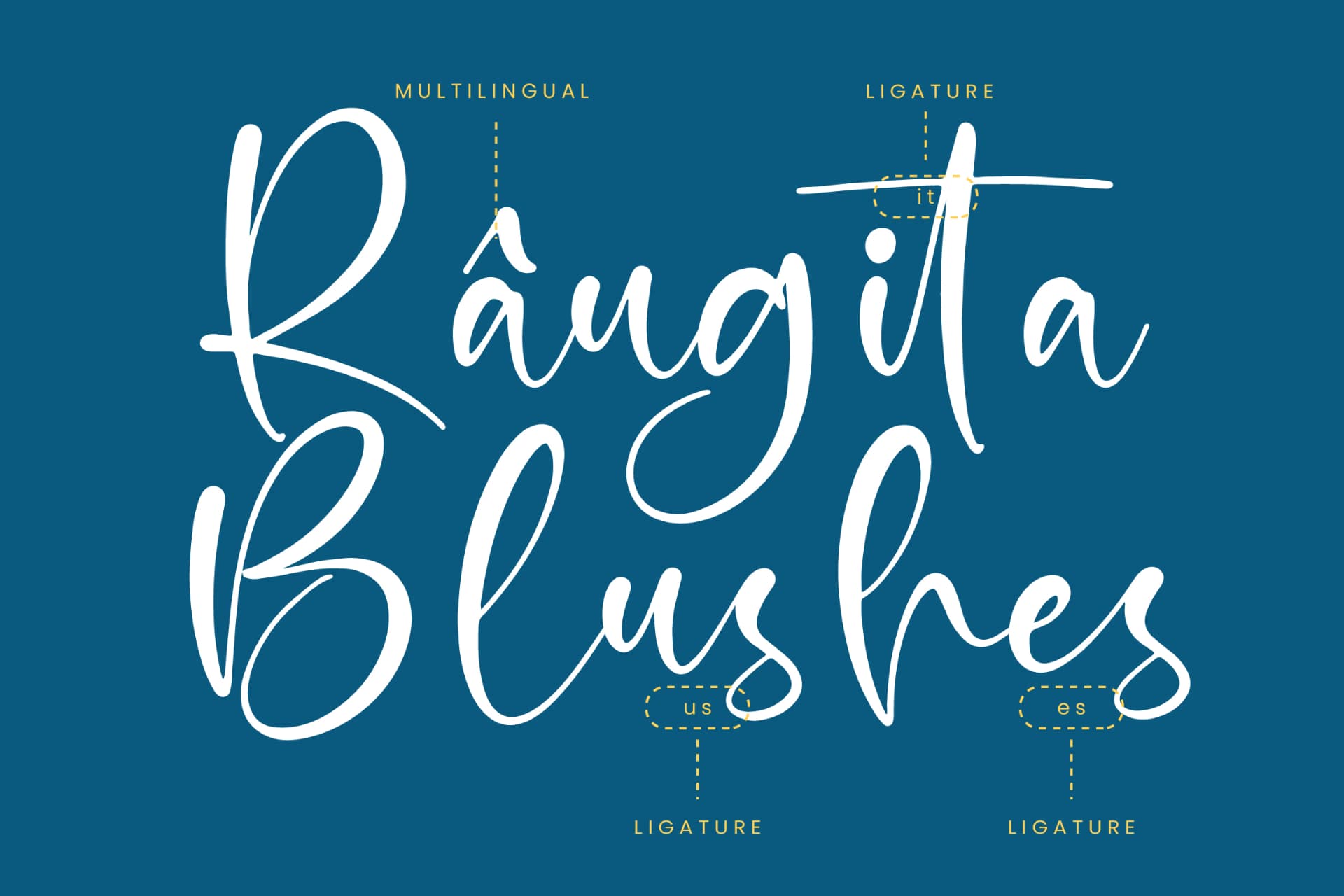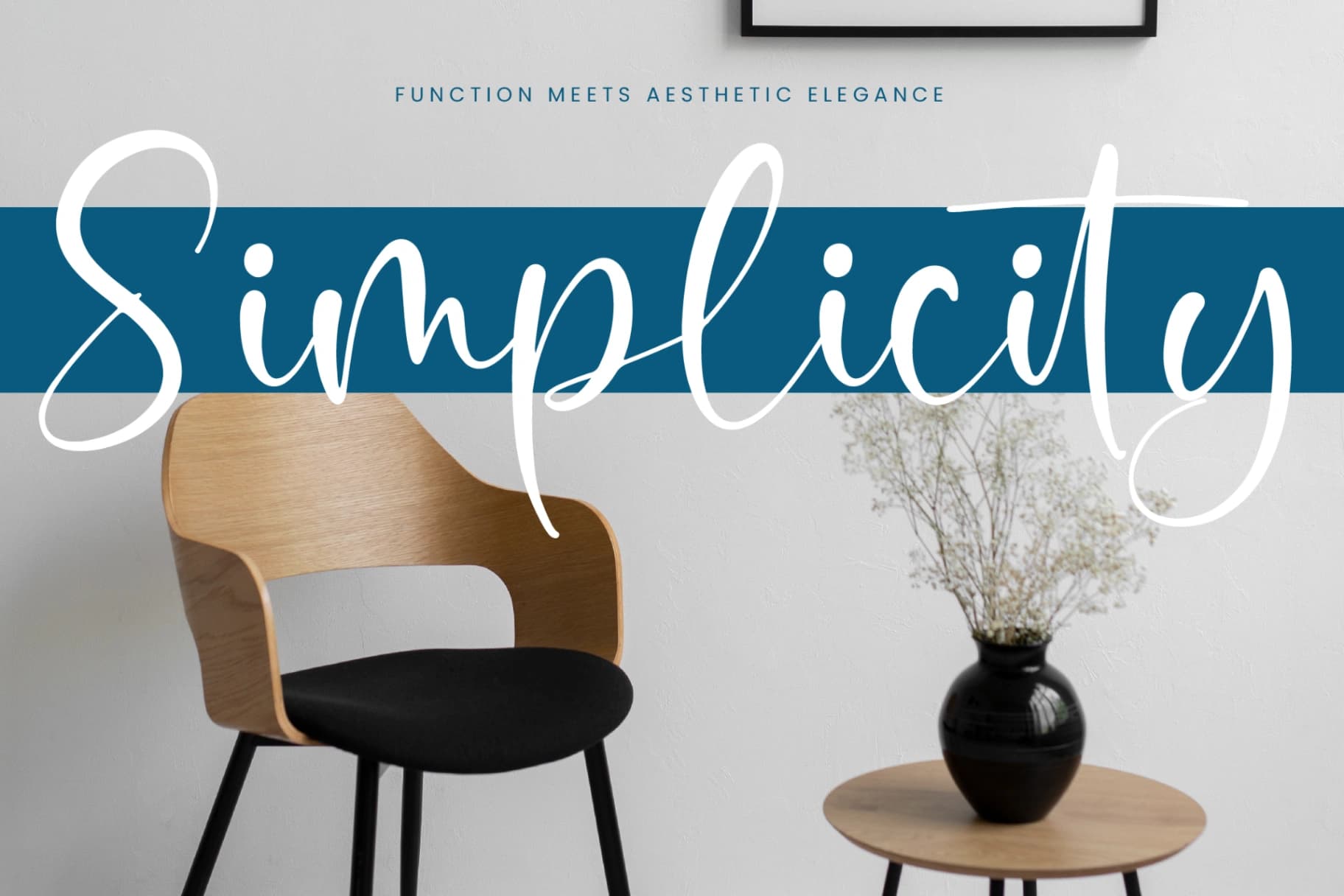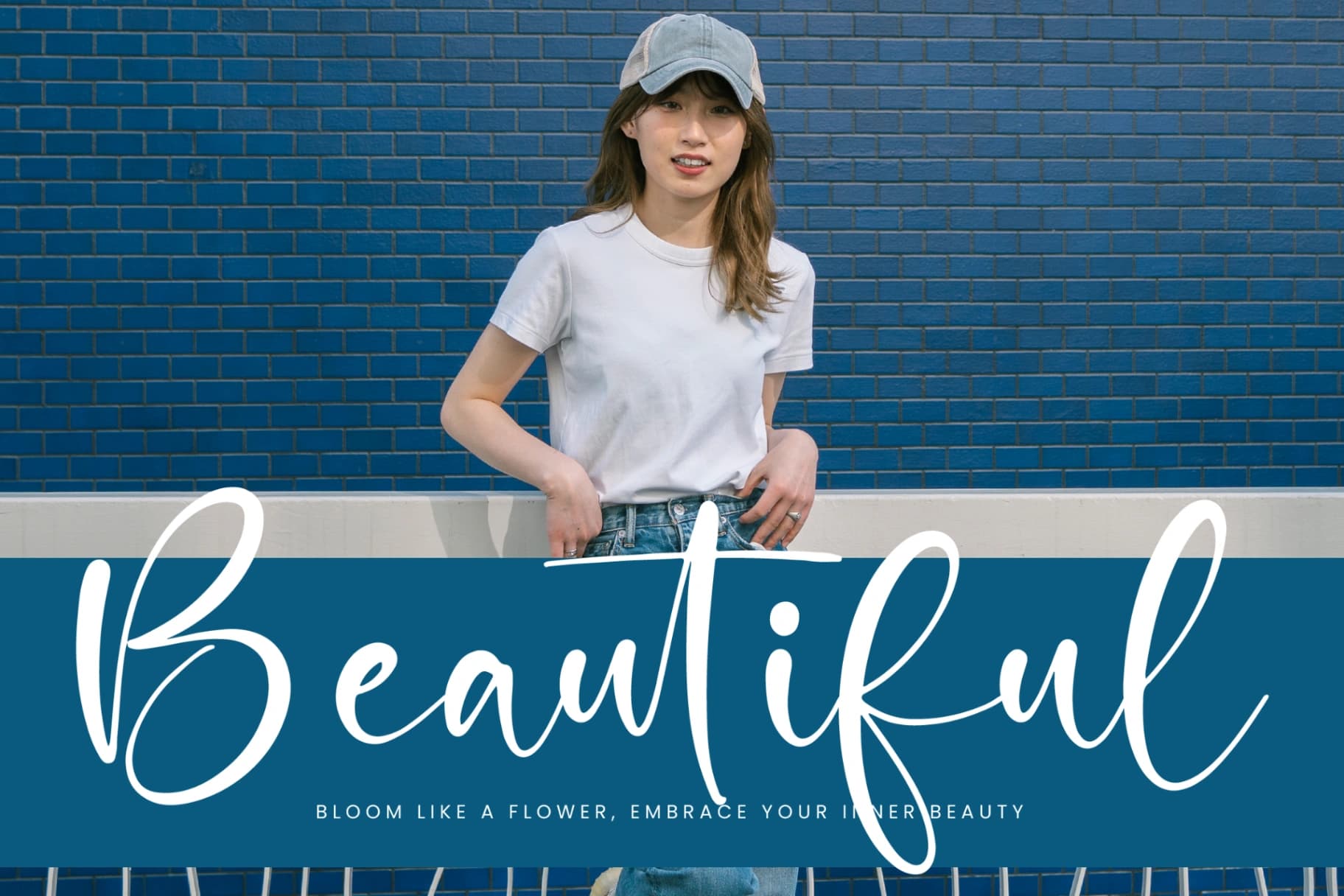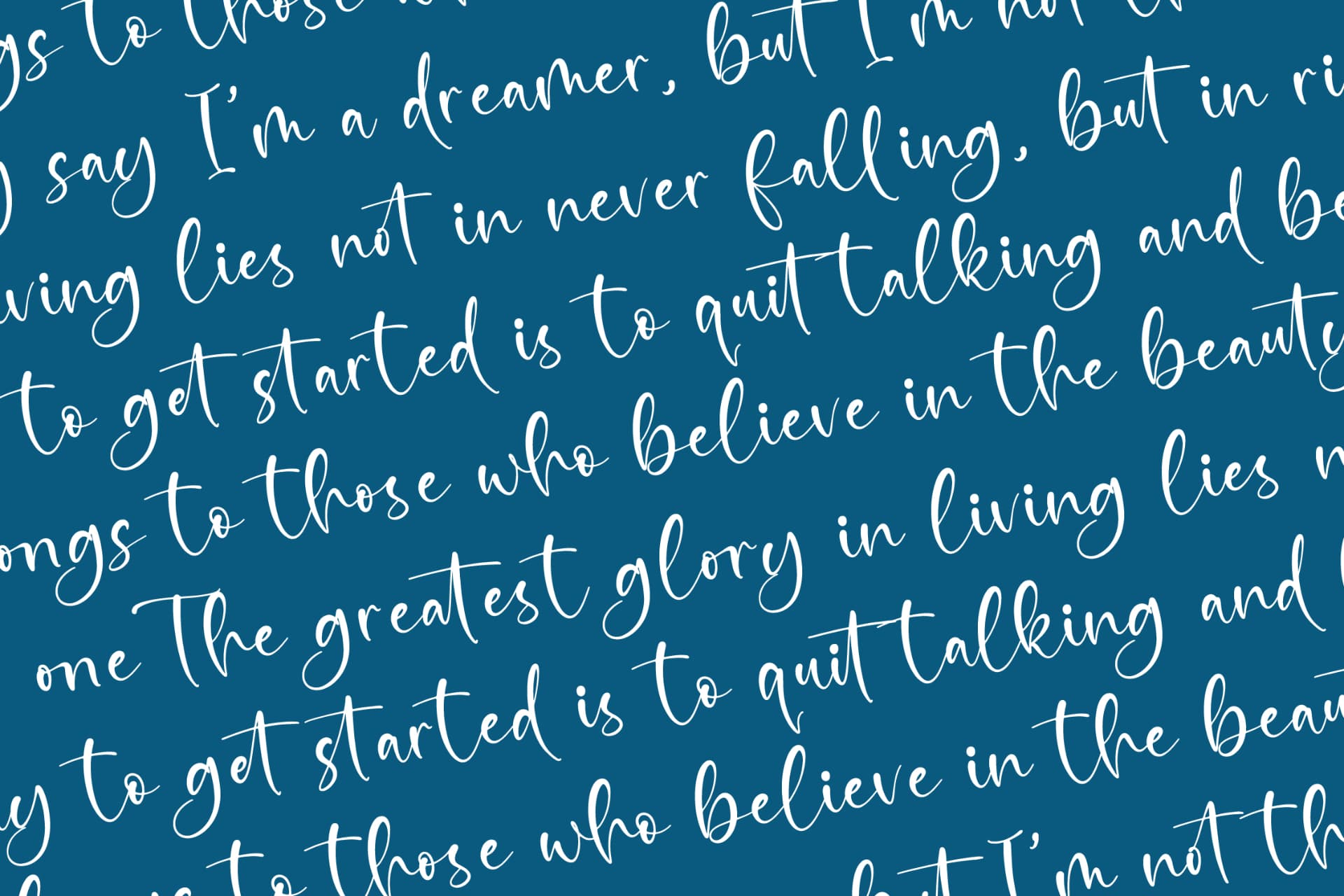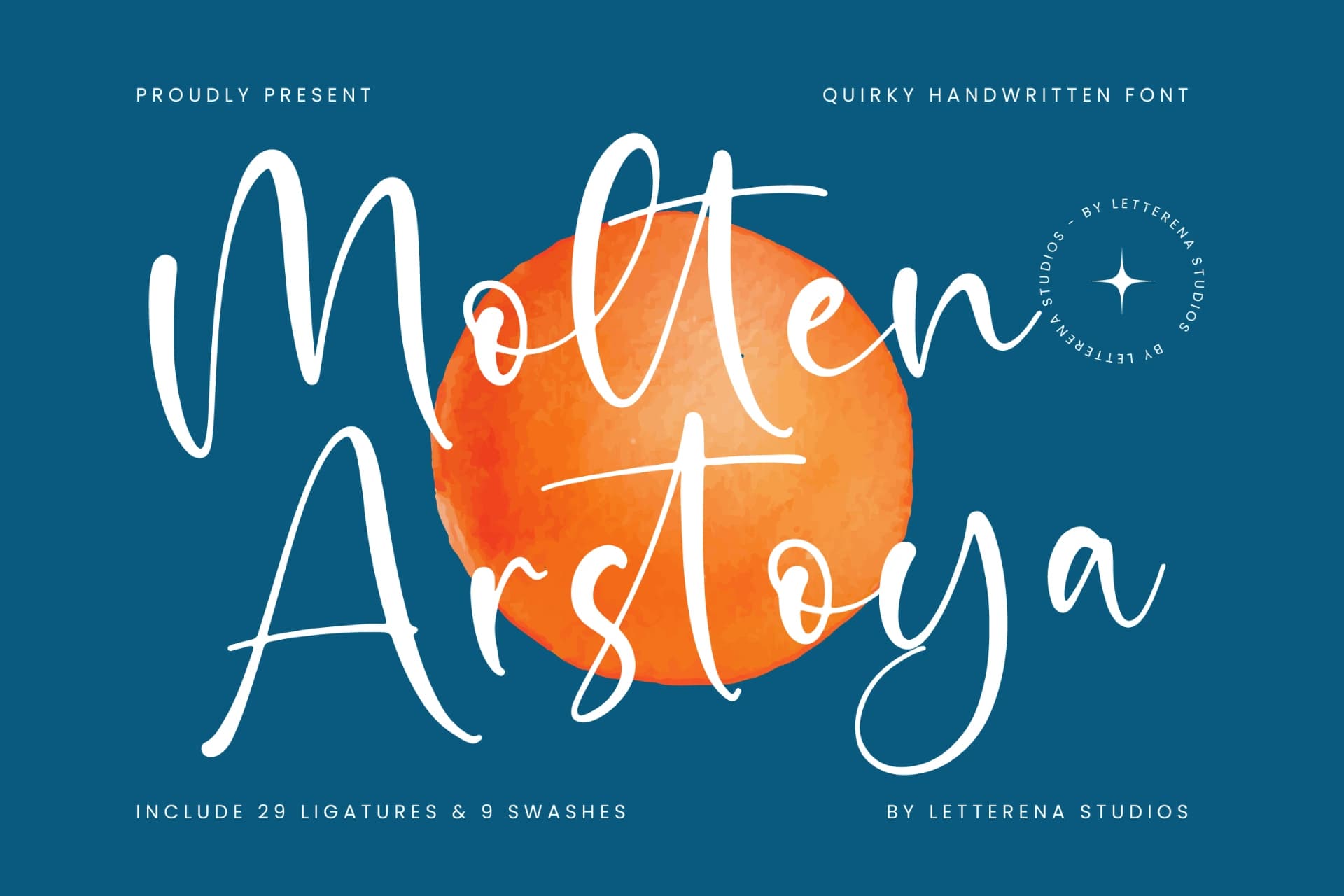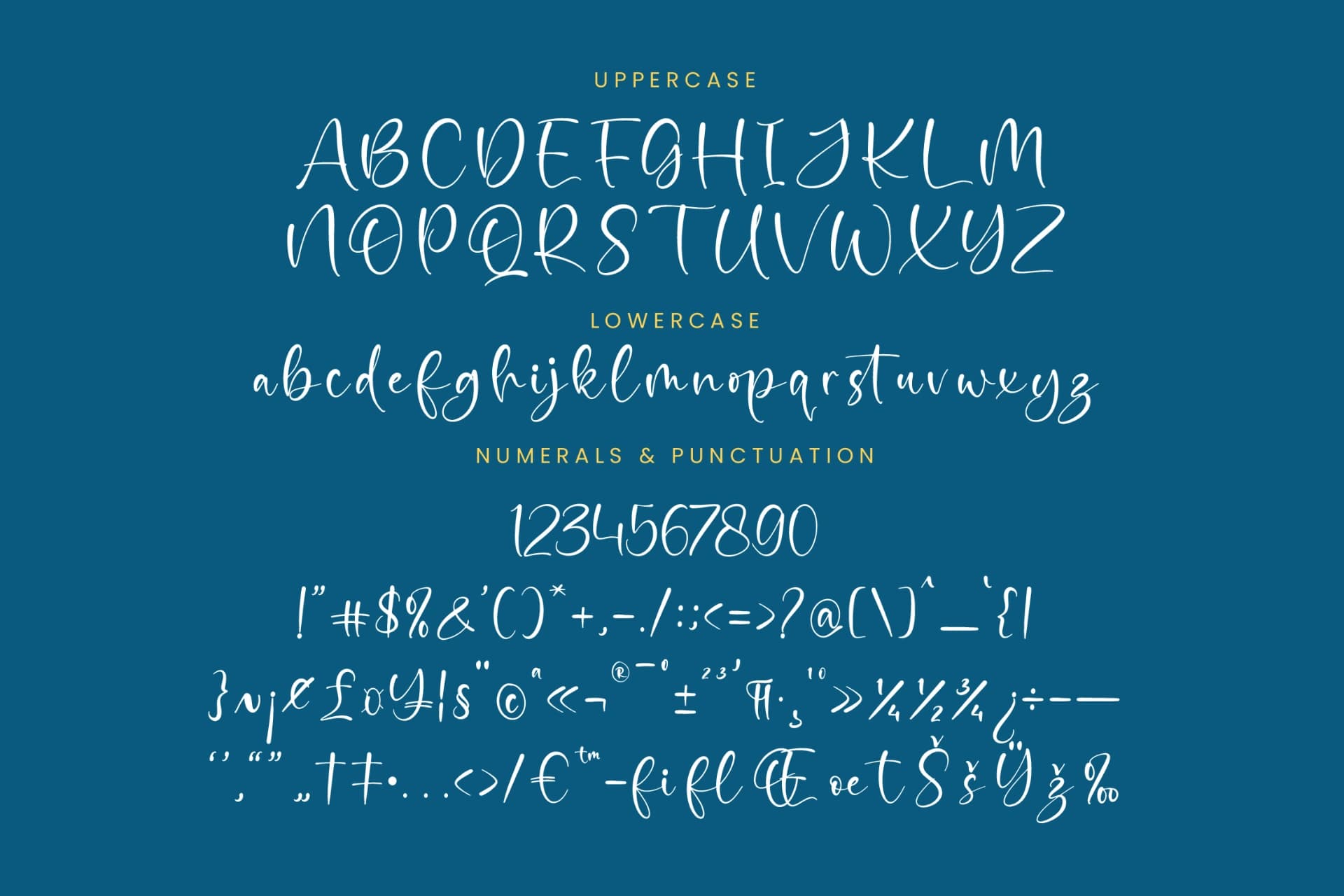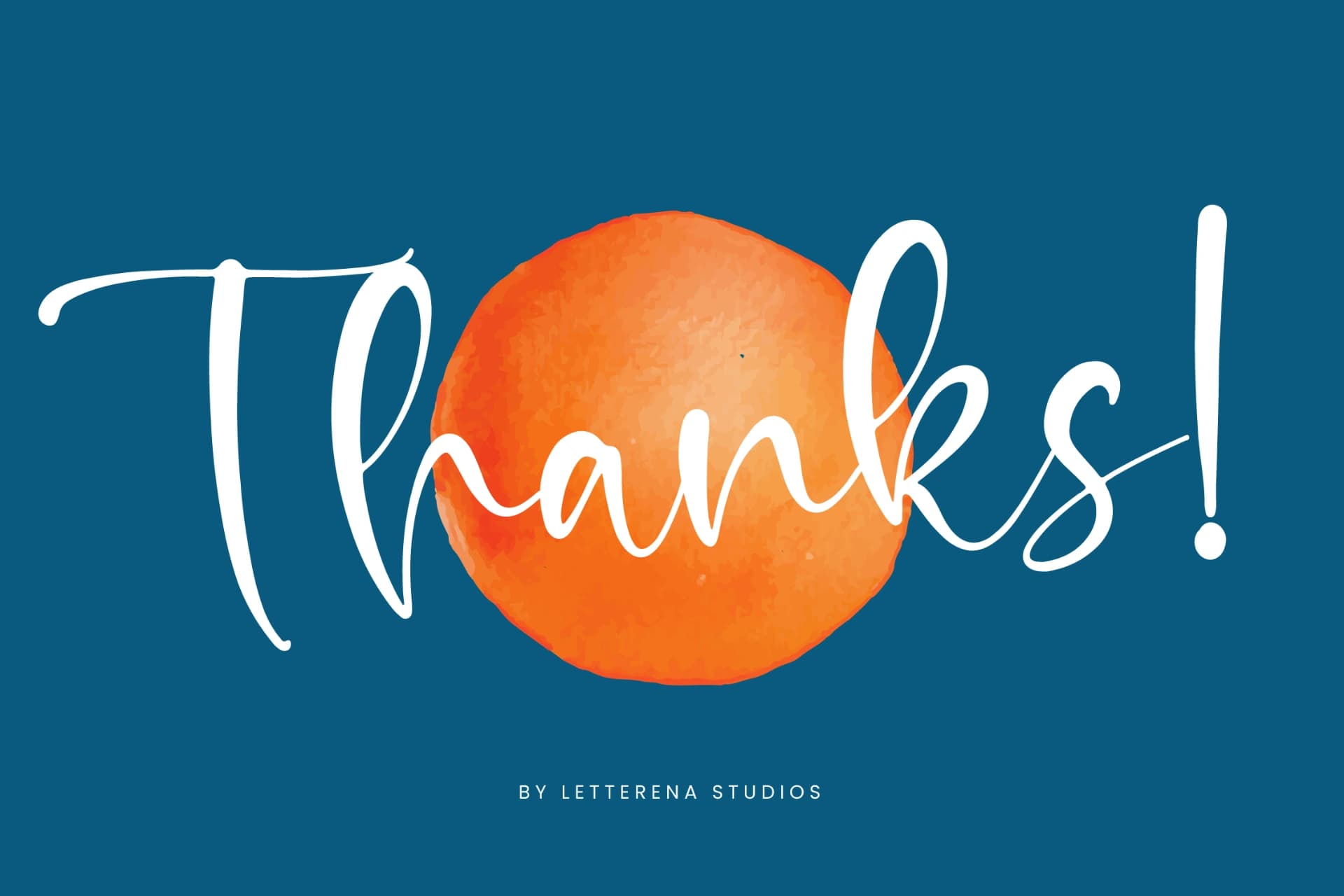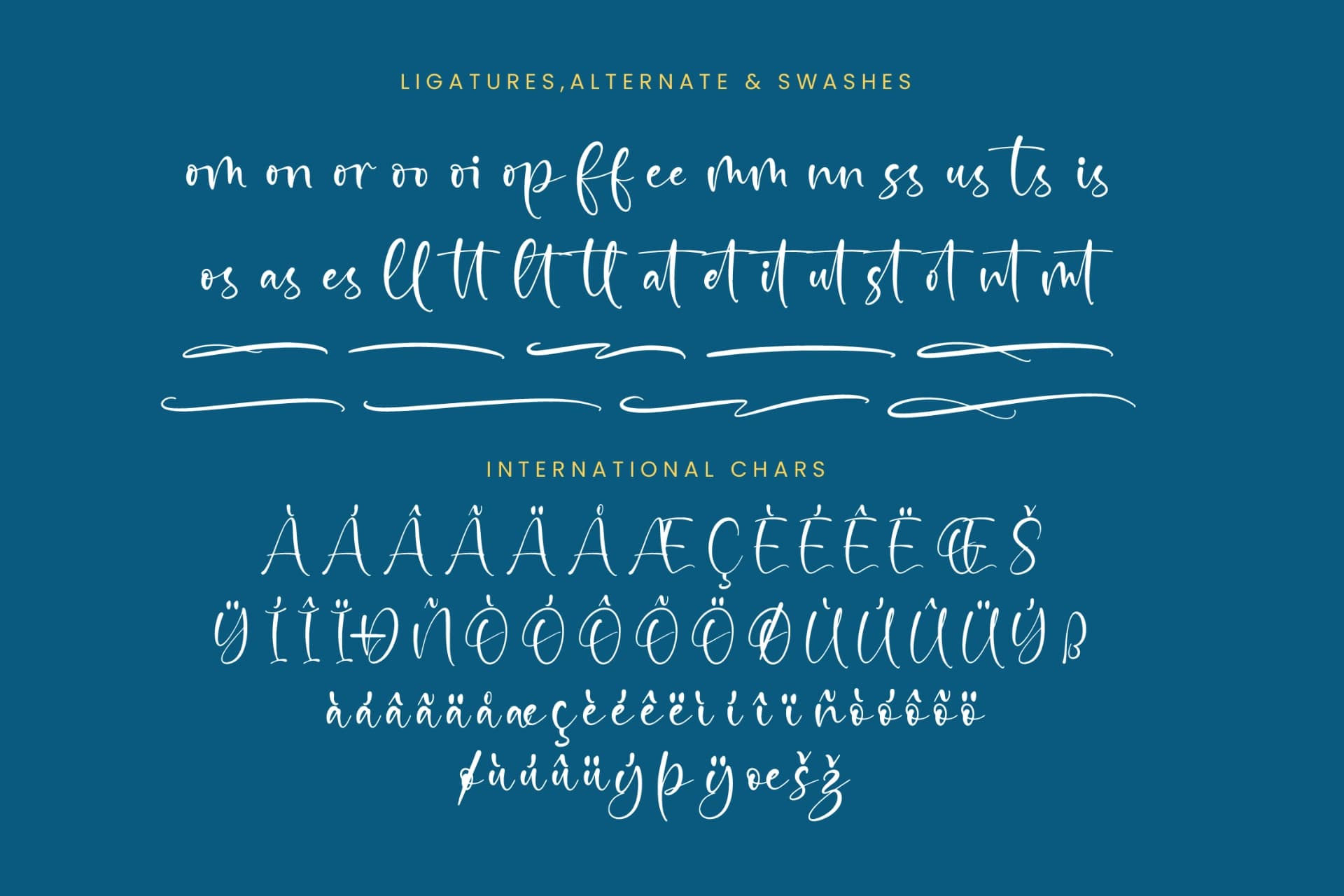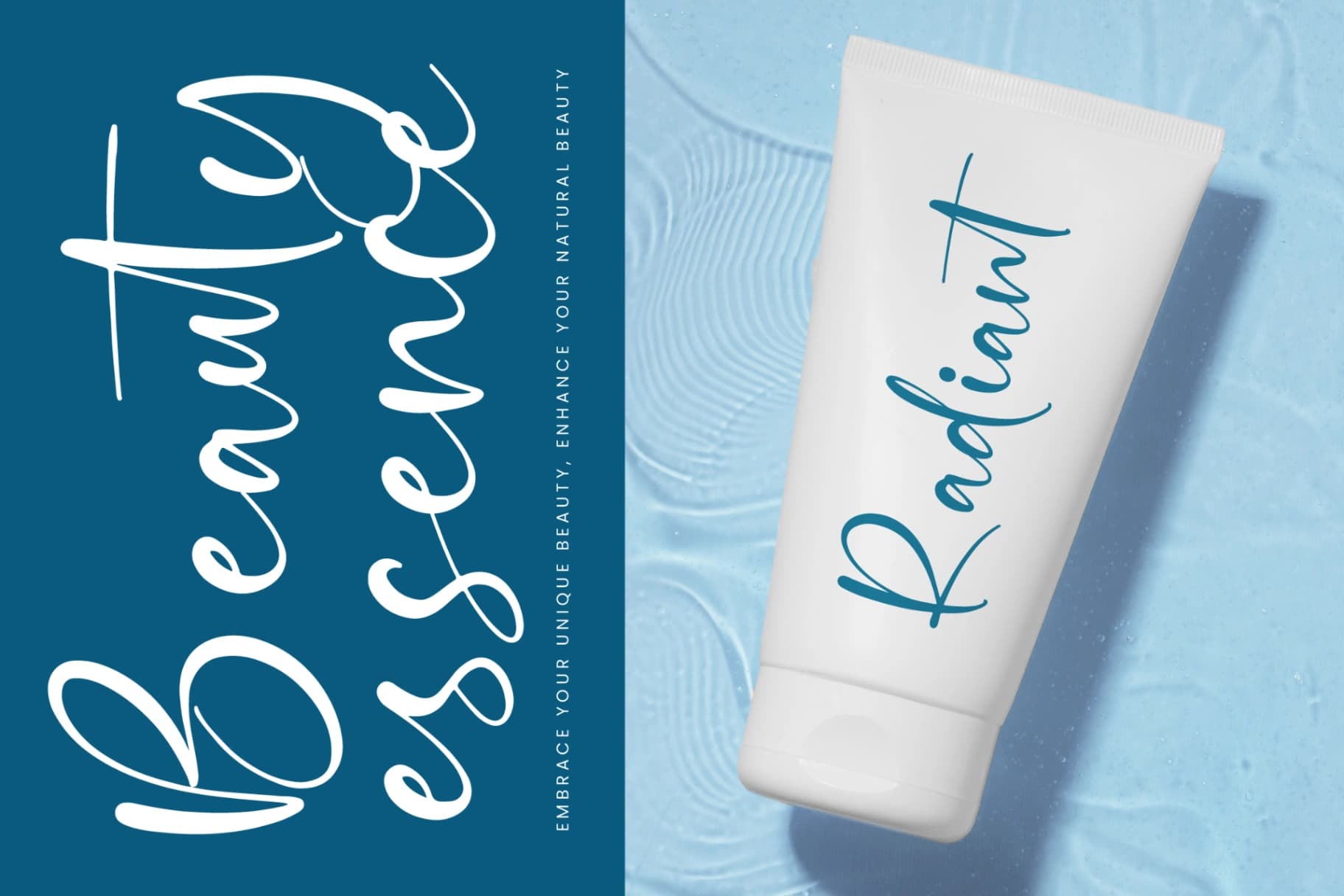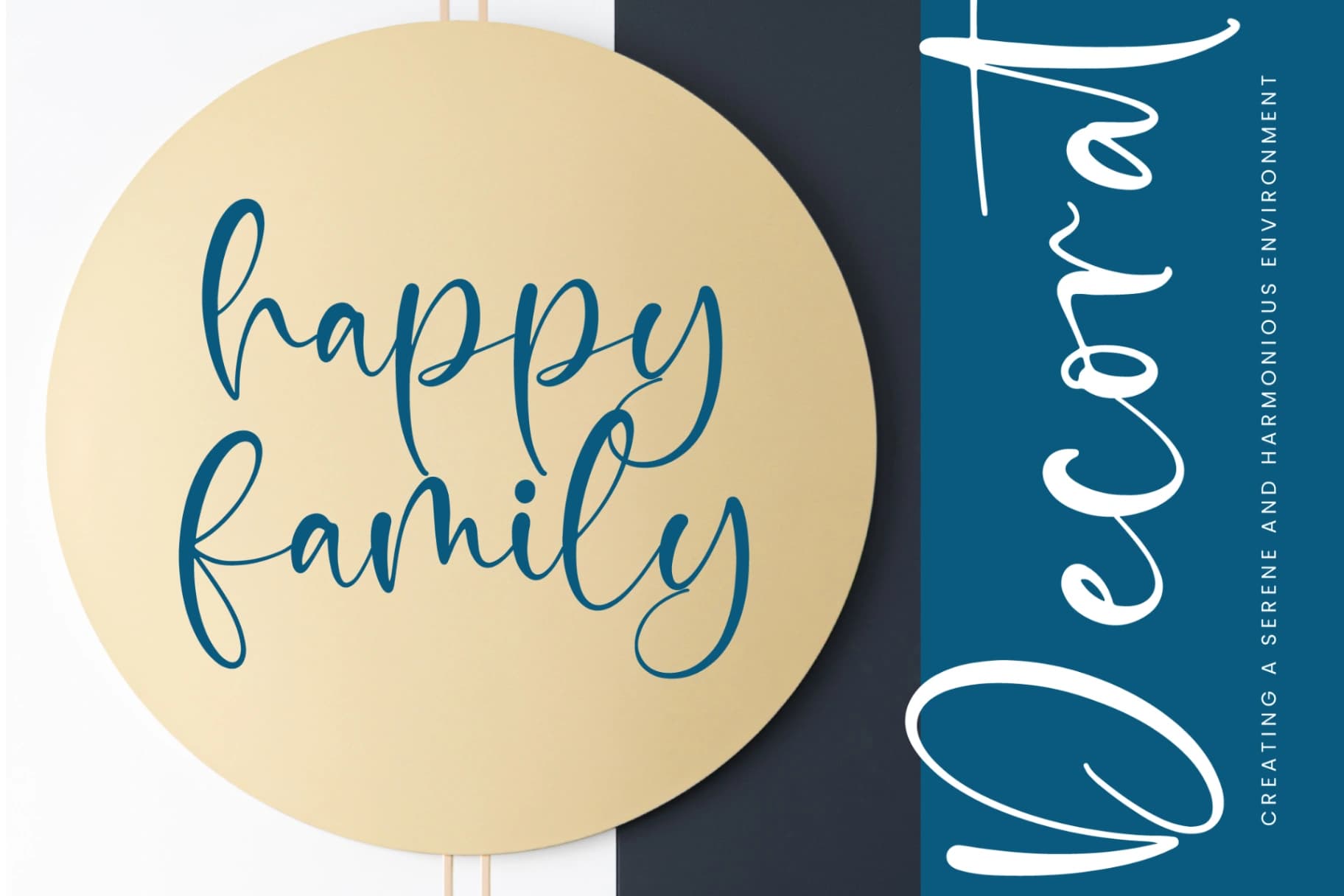
Molten Arstoya - Quirky Handwritten Font
Injecting genuine personality into digital design has never been easier. Introducing Font Molten Arstoya - Quirky Handwritten Font Script, a uniquely fluid typeface defined by its high-contrast strokes and spontaneous, authentic movement. This script masterfully captures the energy of genuine brush lettering while maintaining professional digital fidelity, offering designers a refreshingly expressive aesthetic that instantly elevates any project requiring human warmth and character.
Unlock a deep well of typographic variation and sophistication. To ensure maximum authenticity and natural flow, Font Molten Arstoya - Quirky Handwritten Font Script is packed with powerful OpenType features, including 29 essential ligatures and 9 stunning swashes. These elements provide critical creative flexibility, allowing users to craft custom, seamless connections between letters, transforming static text into visually dynamic and unforgettable display typography.
Expand your reach without compromising your distinct visual voice. With its extensive multilingual support, Font Molten Arstoya - Quirky Handwritten Font Script adapts seamlessly across global markets, making it incredibly versatile for international projects. This robust global capability ensures that whether you are designing for Europe, Asia, or the Americas, the unique charm and genuine elegance of Font Molten Arstoya - Quirky Handwritten Font Script remains universally accessible and impactful.
Define your brand identity with compelling, memorable typography. This font is perfect for boutique branding, luxury product packaging, high-end wedding invitations, and engaging social media graphics where a personal, premium touch is paramount. The unique balance of quirkiness and refinement makes Font Molten Arstoya - Quirky Handwritten Font Script the definitive choice for designers seeking to convey both artistic flair and professional approachability in their visual communications.